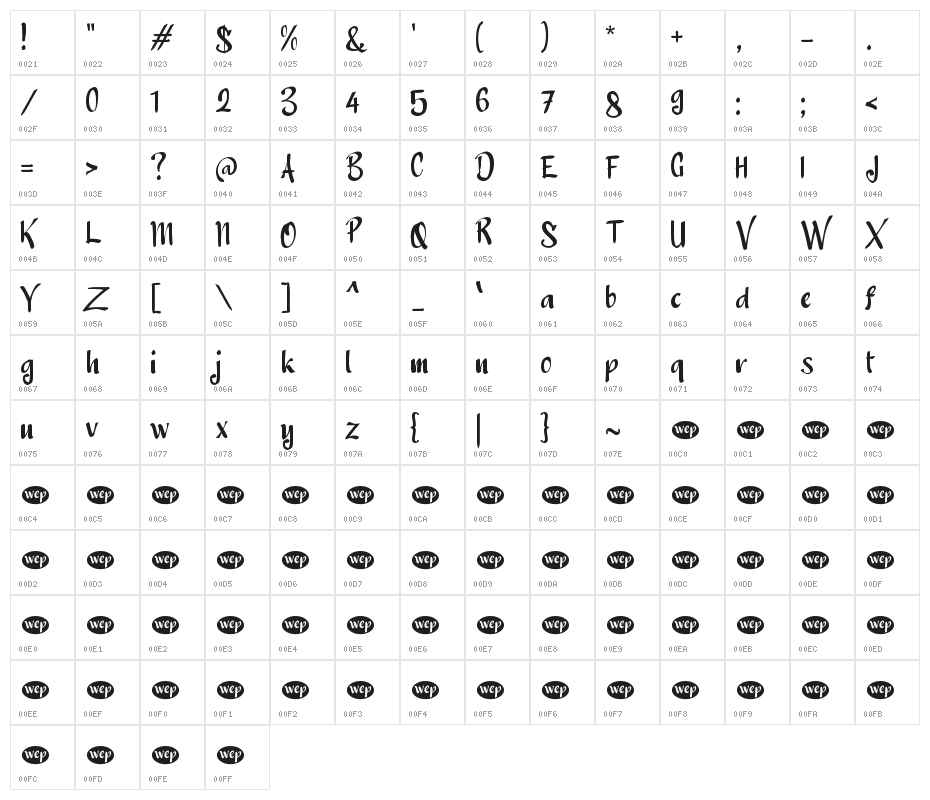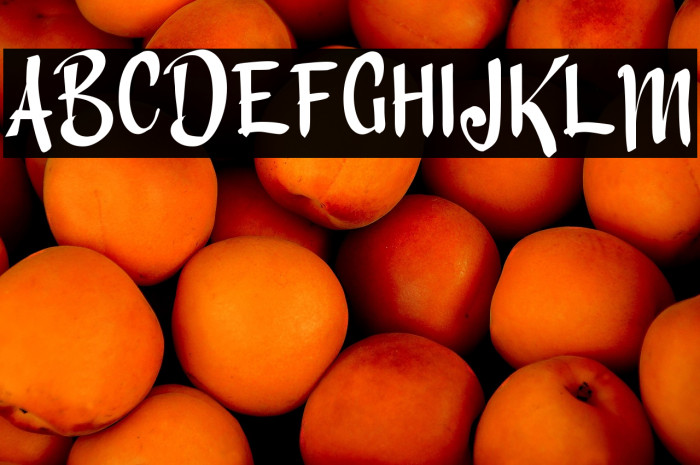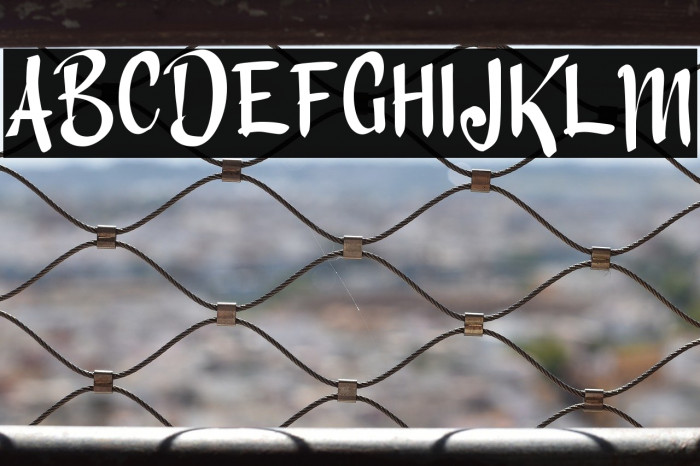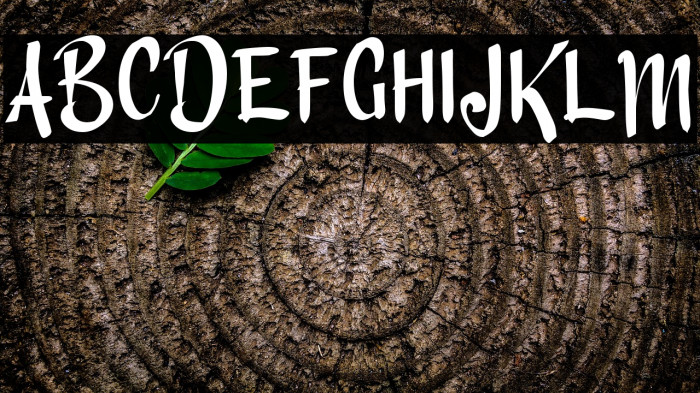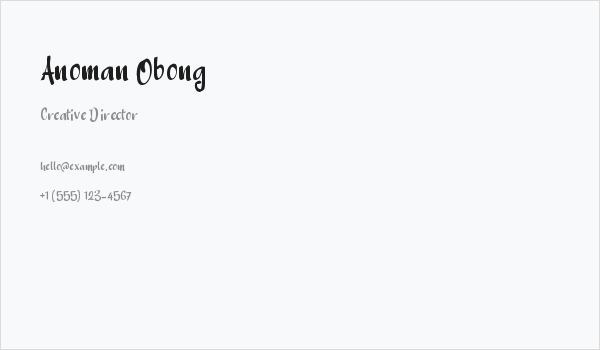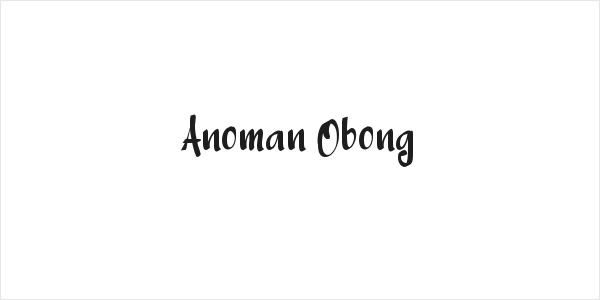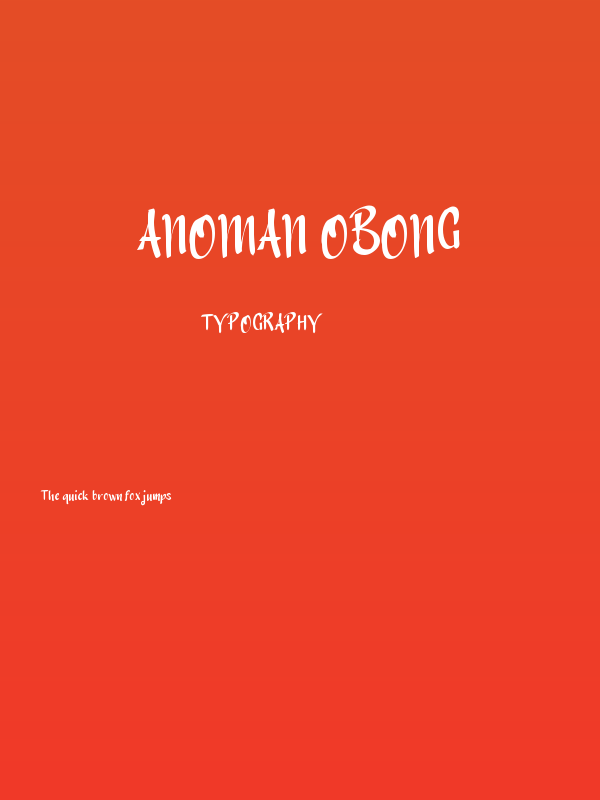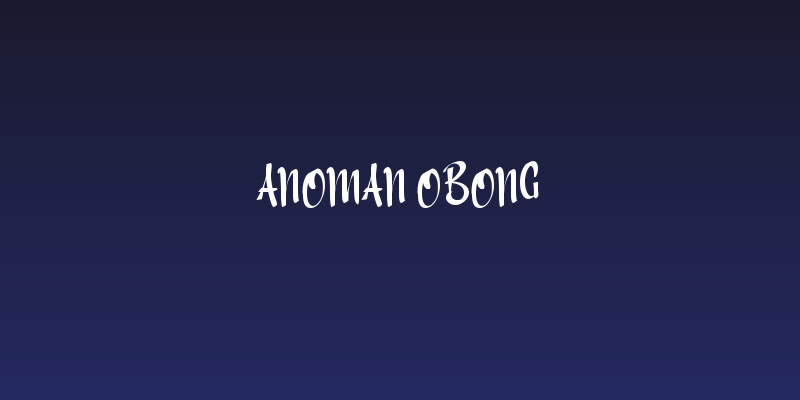
Anoman Obong Font
Anoman Obong Description
This font features a bold and expressive style with a handwritten appearance. The uppercase letters are dynamic and slightly slanted, giving a sense of movement and energy. The lowercase letters maintain a consistent flow, complementing the uppercase with their smooth curves and loops. Numbers are bold and clear, ensuring readability. Special characters are creatively designed, adding a unique flair to the overall aesthetic. The font's playful yet sophisticated style makes it versatile for various design projects.
Proposed ProjectsIdeal for branding, posters, invitations, and creative projects that require a personal touch.